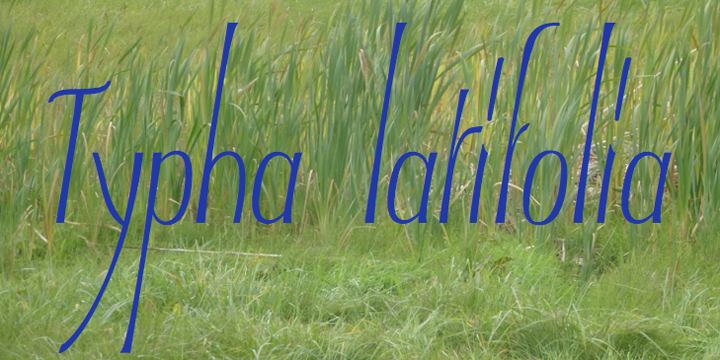
Typha Latifolia Font is perfect for botanical research publications, wetland conservation materials, aquatic plant nursery branding, ecological restoration projects, nature education centers, and environmental science communications. Its natural character makes it ideal for botanical gardens, environmental research institutions, wetland preservation societies, aquatic ecosystem specialists, and any application requiring organic typography that conveys botanical authenticity, ecological wisdom, and the pristine beauty of cattail marshlands.
Typha Latifolia Font is exciting because it captures the graceful elegance and ecological importance of cattail plants through naturally flowing letterforms that mirror the gentle swaying of marsh grasses in wetland environments. Its organic proportions and aquatic-inspired details reflect the vital role these plants play in ecosystem health and water purification, making it perfect for organizations dedicated to environmental conservation and botanical education. The font's botanical character transforms text into living expressions of natural harmony.
Typha Latifolia Font family includes botanically-inspired weight variations typically featuring Light, Regular, Medium, and Bold options with organic styling that maintains natural authenticity. The family often incorporates botanical symbols, ecological ornaments, and scientific character sets designed for environmental applications, providing designers with comprehensive tools for creating authentic, nature-focused typographic compositions.
When selecting botanical typography solutions, Typha Latifolia Font Free Download represents an exceptional choice for environmental and botanical projects. This natural typeface brings instant ecological authenticity to any design, making it invaluable for botanical institutions, environmental organizations, and research centers celebrating wetland ecosystems. Whether you're developing botanical field guides, creating wetland conservation campaigns, or designing environmental education materials, Typha Latifolia Font provides the botanical accuracy and ecological sensitivity essential for communicating environmental science in today's conservation-focused educational landscape.